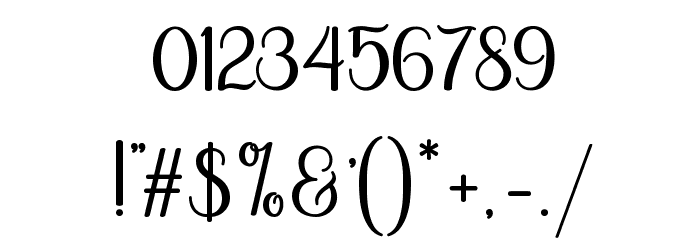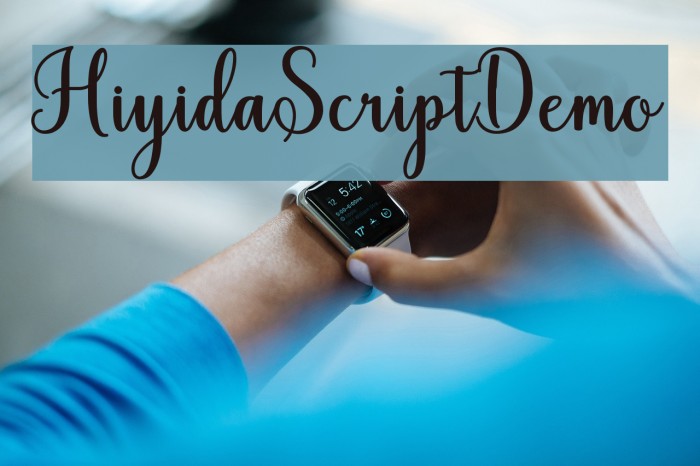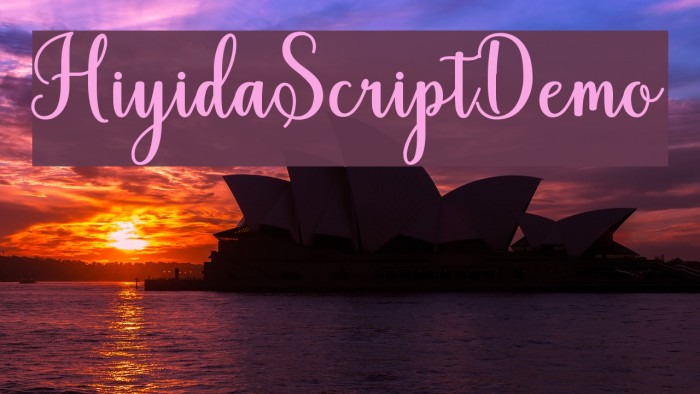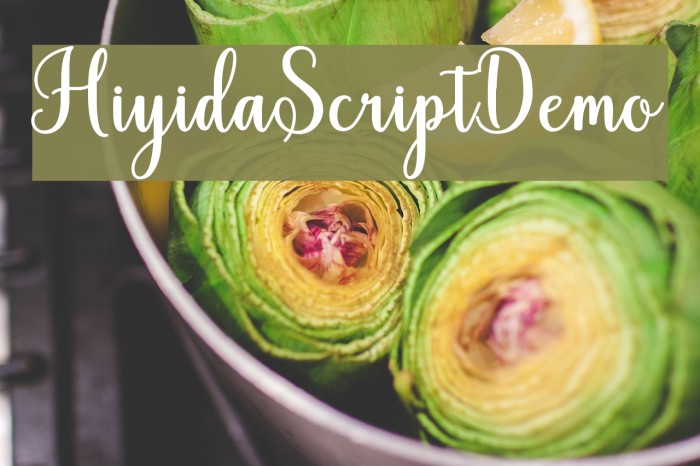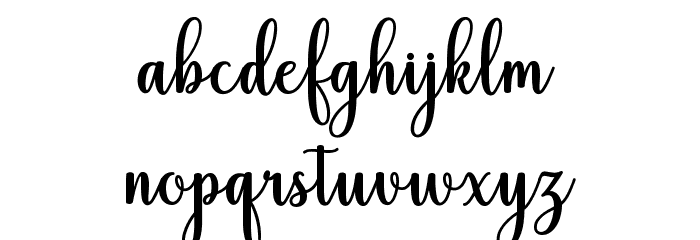
HiyidaScriptDemo Font
HiyidaScriptDemo Description
This elegant script font features flowing, cursive letterforms with a sophisticated and graceful appearance. The uppercase letters are characterized by their sweeping curves and intricate loops, giving a sense of fluidity and movement. The lowercase letters maintain a consistent style, with smooth connections and a slightly more compact form. The numerals are designed to complement the script style, with rounded shapes and a balanced appearance. Special characters are crafted with the same attention to detail, ensuring a cohesive look across all glyphs. This font exudes a sense of elegance and charm, making it ideal for projects that require a touch of sophistication.
A graceful and elegant script font with flowing, cursive letterforms from Uncategorized fonts.
- Proposed Projects: Wedding invitations, elegant branding, greeting cards, and luxury packaging.
- Overall Style: Elegant
- Use Case: Logos, Invitations, Decorative text